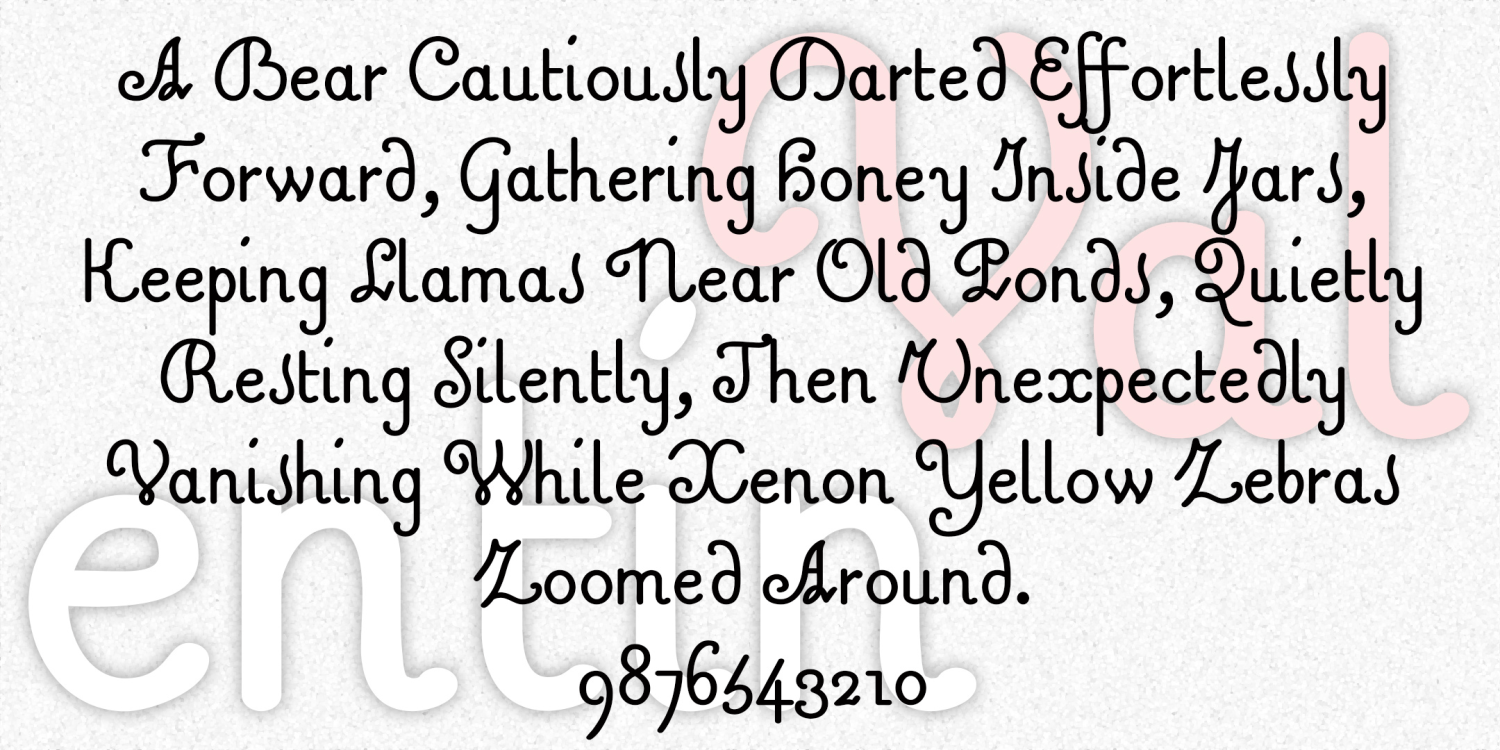
Valentin
VALENTIN is a sweet and simple cursive font. A mix of friendly and formal, Valentin’s vertical letterforms are in the French style.
Valentin was inspired by 18th-century experiments in raised-letter printing for the blind. Designed by Valentin Haüy, this style is beautiful on the page and could be read by both blind and untrained sighted readers.
The Valentin font family includes 337 glyphs.